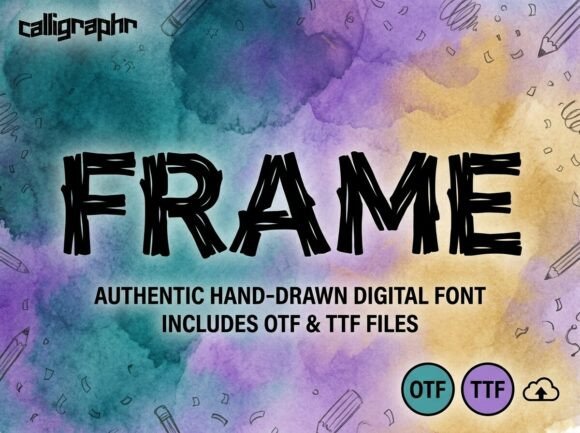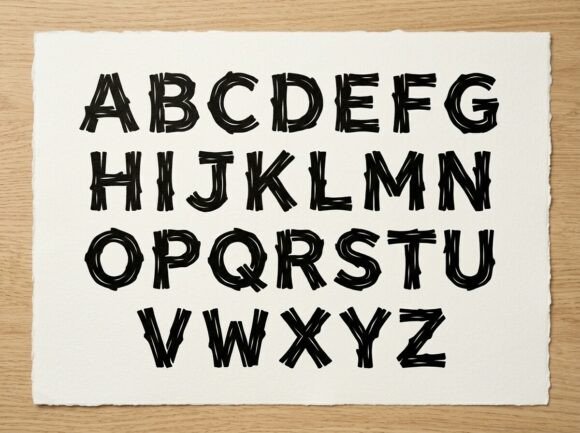
Introducing Frame Font: The Ultimate Decorative Display Font for Creators
Are you tired of using the same old fonts for your designs? Do you want to make a statement and stand out from the crowd? Look no further than Frame Font, a stunning decorative display font that’s designed to be the center of attention. With its unique artistic elements and strong visual personality, this font is perfect for creators who want to break away from the ordinary and take their designs to the next level.
What Makes Frame Font So Special?
Frame Font is a versatile font that’s perfect for a variety of design applications, including bold headlines, artistic logos, and creative packaging. Its unique artistic elements and strong visual personality make it an ideal choice for designers who want to add a touch of elegance and sophistication to their work. Whether you’re designing a logo, brochure, or website, Frame Font is sure to make a lasting impression.
Key Features of Frame Font
- Unique Artistic Elements: Frame Font features unique artistic elements that set it apart from other fonts. Its decorative elements are carefully crafted to add a touch of elegance and sophistication to your designs.
- Strong Visual Personality: This font has a strong visual personality that’s sure to grab attention. Its bold and eye-catching design makes it perfect for headlines, logos, and other design elements that need to stand out.
- Versatile: Frame Font is versatile enough for a variety of design applications, including bold headlines, artistic logos, and creative packaging.
- Professional and Polished Finish: Despite its bold and decorative design, Frame Font maintains a professional and polished finish that’s suitable for even the most high-end designs.
IMPORTANT NOTE BEFORE PURCHASE: Frame Font is an ALL-CAPS (Uppercase Only) display typeface. It does not include lowercase letters. It is specifically designed for high-impact headlines, logos, and decorative initials where every letter is a work of art.
Why Choose Frame Font?
There are many reasons why Frame Font is the perfect choice for designers and crafters. Here are just a few:
- Add a Touch of Elegance: Frame Font adds a touch of elegance and sophistication to your designs, making it perfect for high-end branding and marketing materials.
- Stand Out from the Crowd: With its unique artistic elements and strong visual personality, Frame Font is sure to make your designs stand out from the crowd.
- Perfect for Logos and Headlines: Frame Font is specifically designed for high-impact headlines, logos, and decorative initials, making it perfect for designers who want to make a statement.
Tips for Using Frame Font
Here are a few tips for getting the most out of Frame Font:
- Use it for Headlines and Logos: Frame Font is perfect for headlines and logos, where its bold and eye-catching design can really make an impact.
- Experiment with Colors and Textures: Frame Font looks great in a variety of colors and textures, so don’t be afraid to experiment and find the perfect combination for your design.
- Pair it with Other Fonts: Frame Font can be paired with other fonts to create a unique and eye-catching design. Try pairing it with a clean and simple font for a bold and modern look.